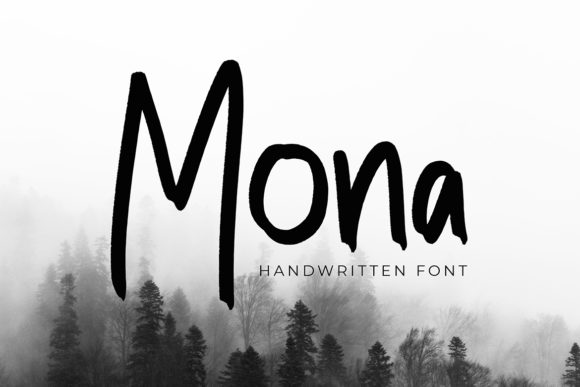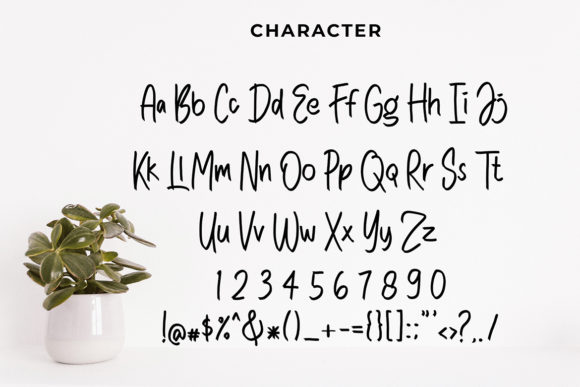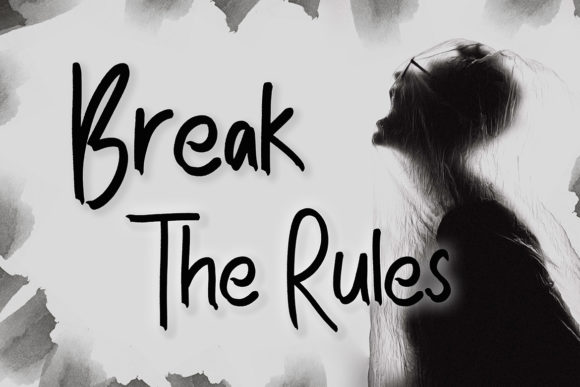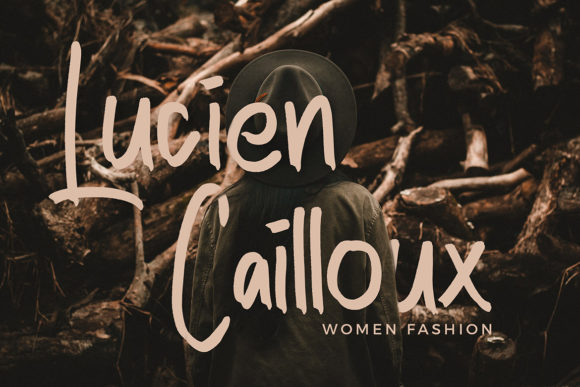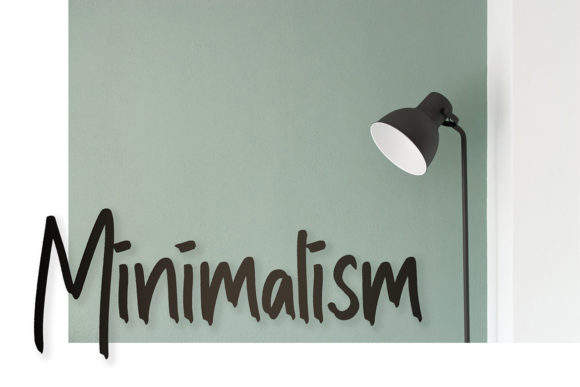
HomeScript FontsMona Font Script Fonts Mona Font FacebookXPinterestWhatsApp Mona Font Poster 2 Mona Font Poster 3 Mona Font Poster 4 Mona Font Poster 5 Mona Font Poster 6 About Mona Font Mona is a simply striking handwritten font that fuses authenticity and elegance into one original script. DOWNLOAD ON CREATIVE FABRICAThis font is sold and delivered by Creative Fabrica. Font Canyon may earn a commission if you buy through this link. People also explored Barmukey Font Queer Theory Blossom Font Indigo Daisy Font Whole Trains Font Lettle Power Font Lucky One Font Destrod Font Sunflower Font 326 0 TagsMona Font Previous articleBattley FontNext articleDark Fire Font LEAVE A REPLY Cancel reply Comment: Please enter your comment! Name:* Please enter your name here Email:* You have entered an incorrect email address! Please enter your email address here Website: Save my name, email, and website in this browser for the next time I comment. Personal Use Free Abuget Free Script Personal Use Free Read more about this font Zeshane Personal Use Free Read more about this font Good Timing – Bold Personal Use Free Read more about this font Abingdon Personal Use Free Read more about this font BLOG Modern Sans-Serif Fonts That Brands Love in 2025 In 2025, modern sans-serif fonts remain a top choice for brands looking to project clarity, professionalism, and... Best Fonts for YouTube Videos: Make Your Thumbnails Stand Out Fonts That Capture the Spirit of New York City Free vs Paid Fonts: Why Investing in Premium Fonts Is Worth It